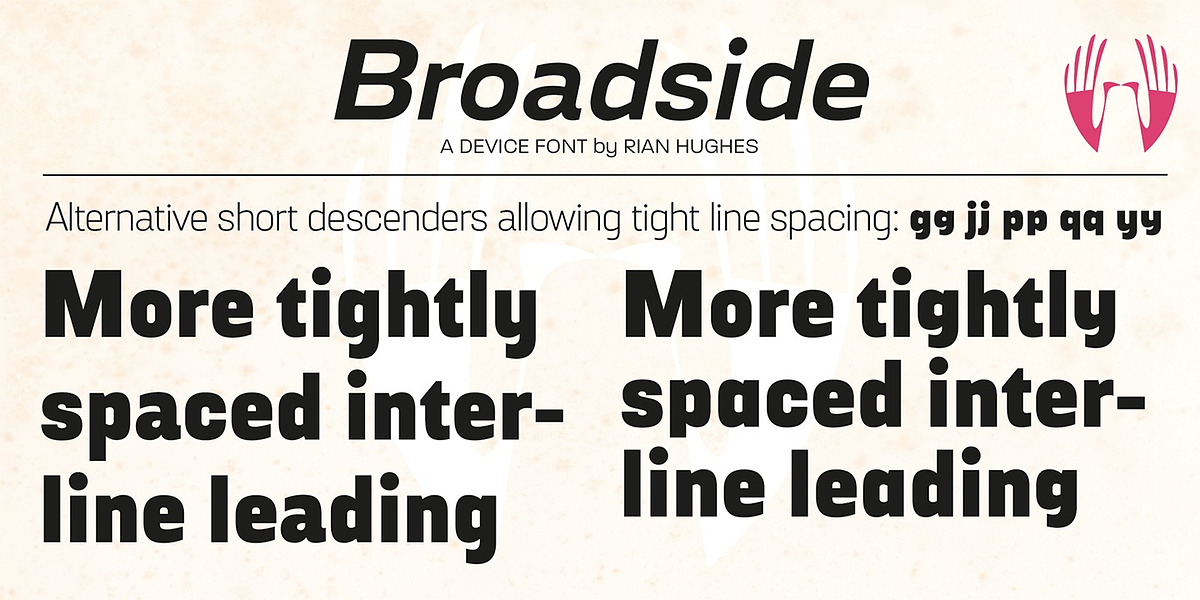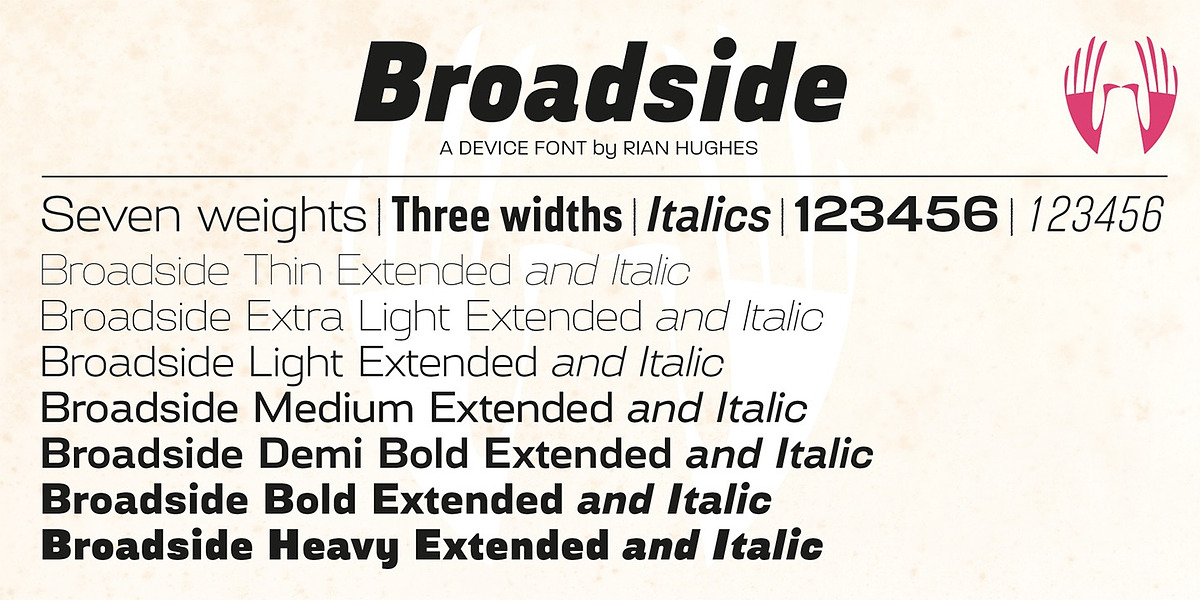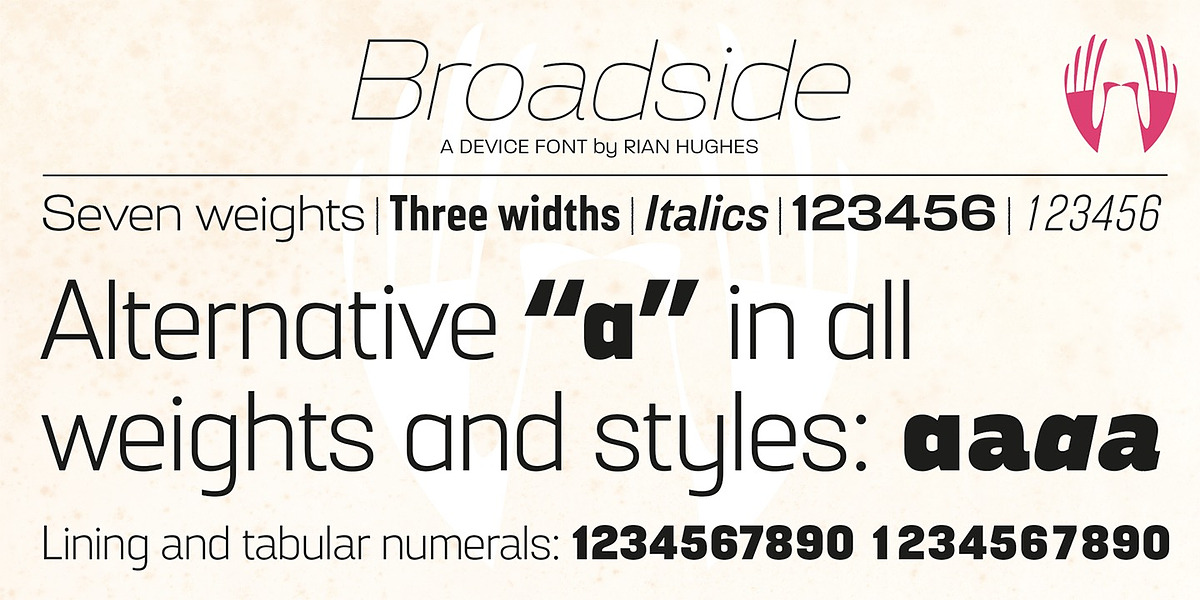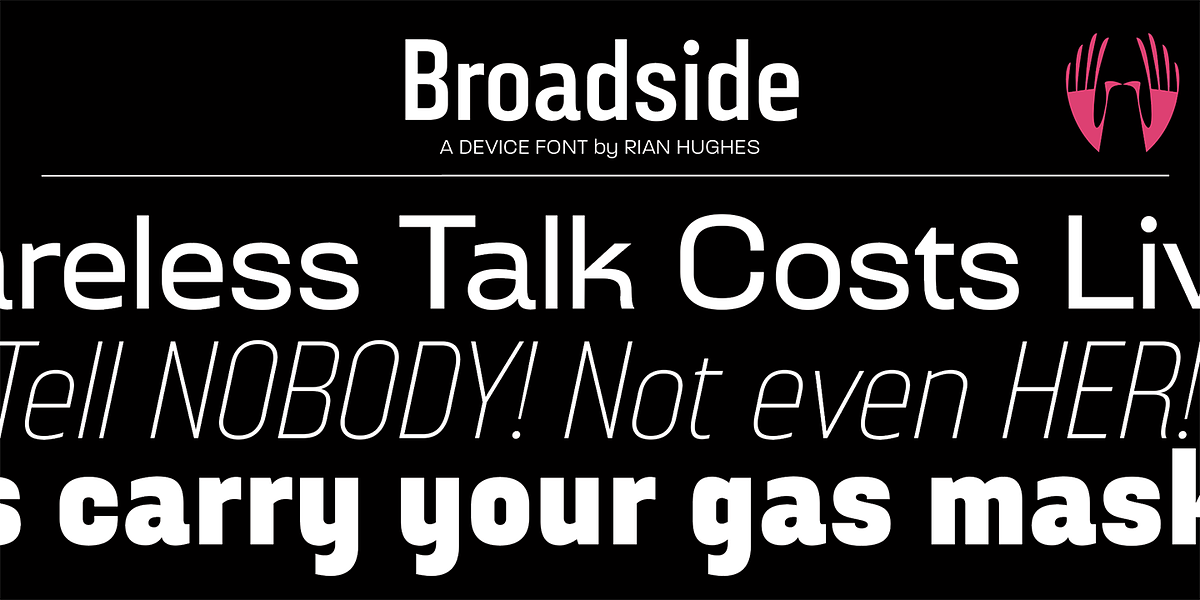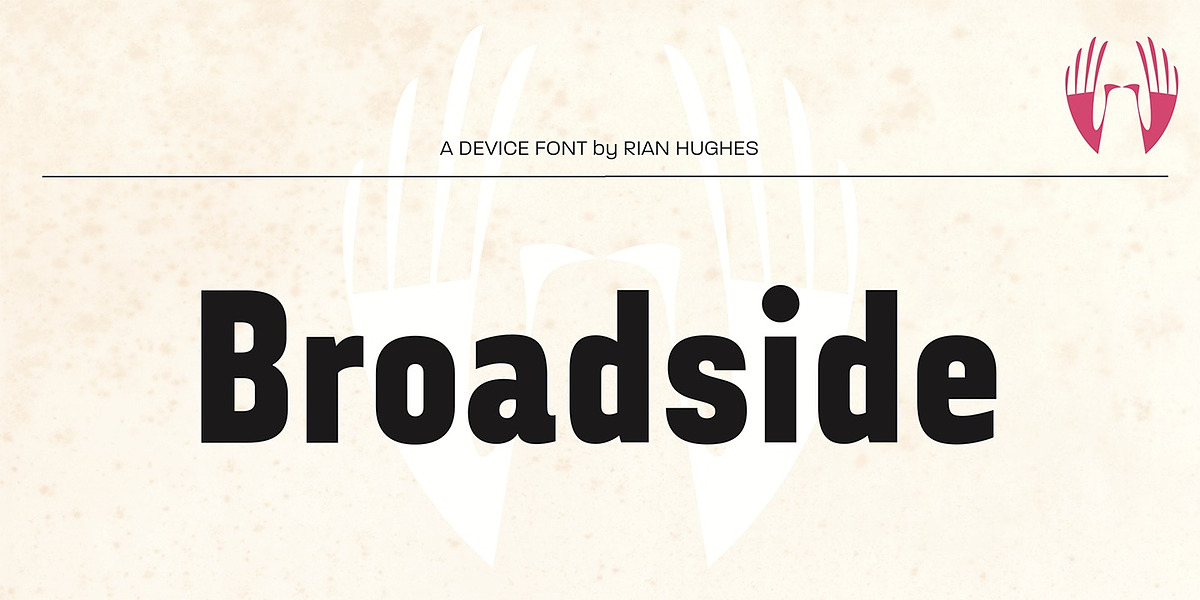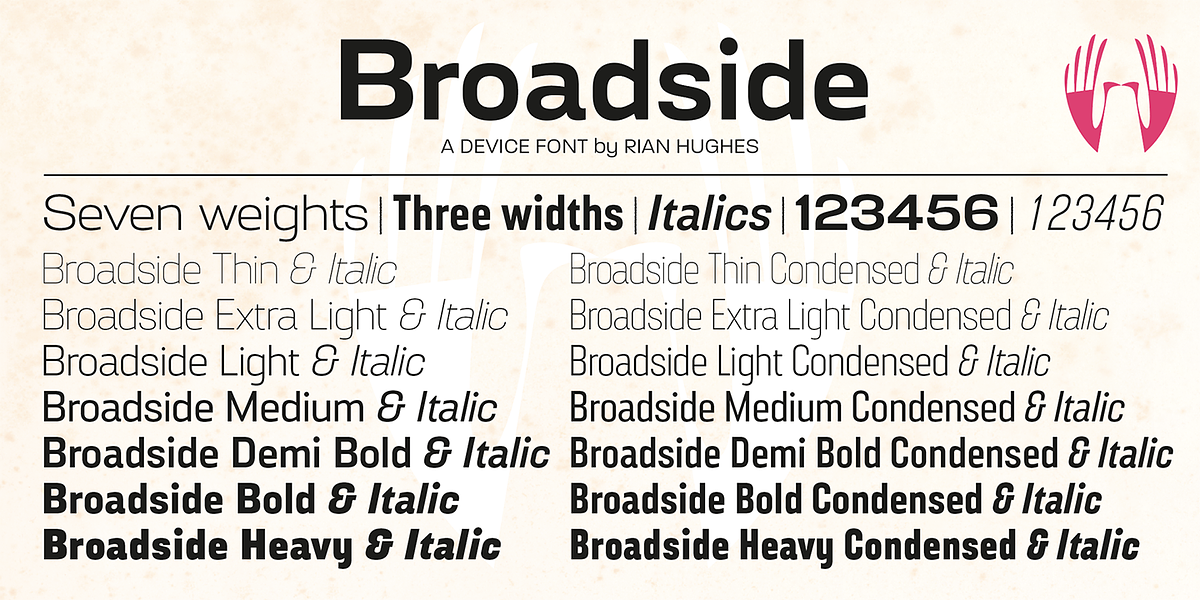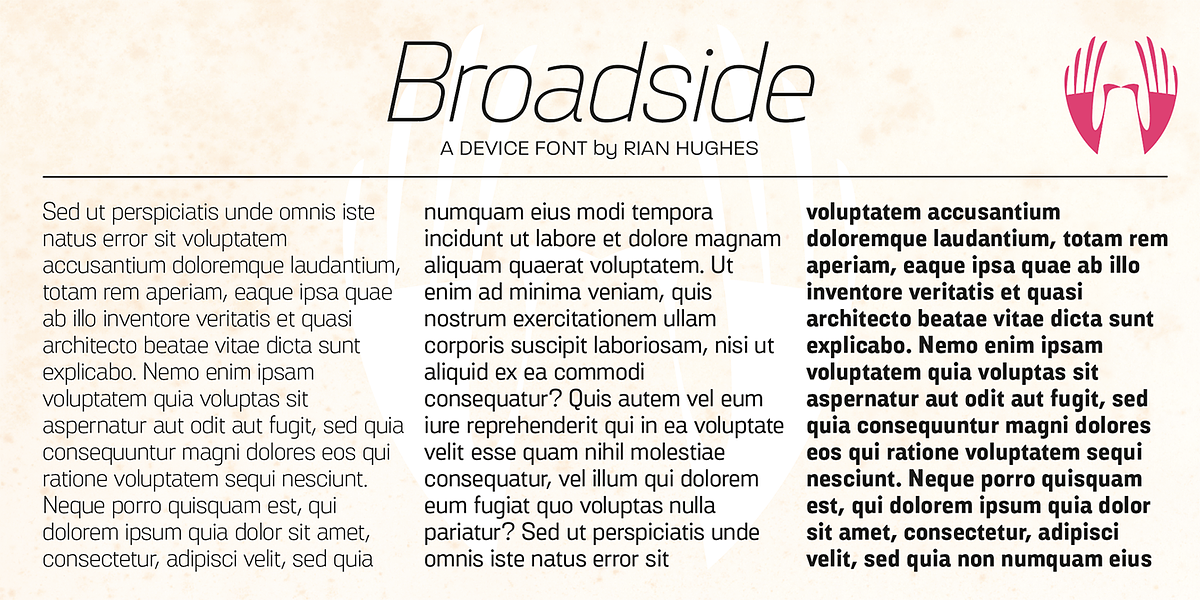
Broadside
Broadside is a neo-grotesque sans serif font family inspired by the typefaces found on patriotic posters and advertising from the 1940s and 1950s. The design draws upon the stylistic quirks common to this era's hand-drawn lettering, combining influences from both American and British examples. It is available in seven weights across condensed, normal, and extended widths, each with reweighed italics. Broadside includes alternate short descenders for tighter line spacing and features both tabular and lining numerals as well as a single-story 'a'.